I use the \newtxmath as the math font in my document and \newtxtext for the text. This seems to work fine, but I need to replace some math symbols which seem to me not as nice as their default Latin Modern Math counterpart. The symbols I need to replace, e.g., are:
• \int and \sum: they look so high and big,
• \infty: looks too small, and
• \partial and \pi: looks strange too.
I have searched for similar or near question like this one (Replace several letters in math font), but I haven't been very successful in reusing the answer therein in my case.
My MWE is:
And this is nonmath text.
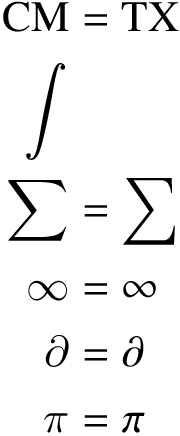
The case \int is trivial, because there is an option cmintegrals for package newtxmath. In the other cases, the symbol fonts are overwritten by newtxmath. Therefore the example again defines them with a different name (CM appended):
Result
• Works very fine @Heiko Oberdiek, but please I need more clarification about the commands \DeclareSymbolFont{symbolsCM}{OMS}{cmsy}{m}{n} \SetSymbolFont{symbolsCM}{bold}{OMS}{cmsy}{b}{n}. How do I know the parameters and names associated with a specific symbol. Forgive my shallow knowledge in this regard. – AboAmmar Sep 12 '14 at 21:10
@AboAmmar A starting point is LaTeX's font guide. In this case I have copied the lines from fontmath.ltx (part of the LaTeX kernel) with the a small change of the name (e.g. symbolsCM instead of symbols). – Heiko Oberdiek Sep 12 '14 at 21:42
• Do you know where I can look up the code for any other simbol? for instance where 50 is the code for \sum. – N. Pullbacki Nov 13 '23 at 14:49
• @N.Pullbacki In general, it depends on the used fonts and font packages. Here, the CM symbols can be taken from the definitions in tds:tex/latex/base/fontmath.ltx, e.g.: \DeclareMathSymbol{\sum}{\mathop}{largesymbols}{"50}. – Heiko Oberdiek Nov 17 '23 at 19:29